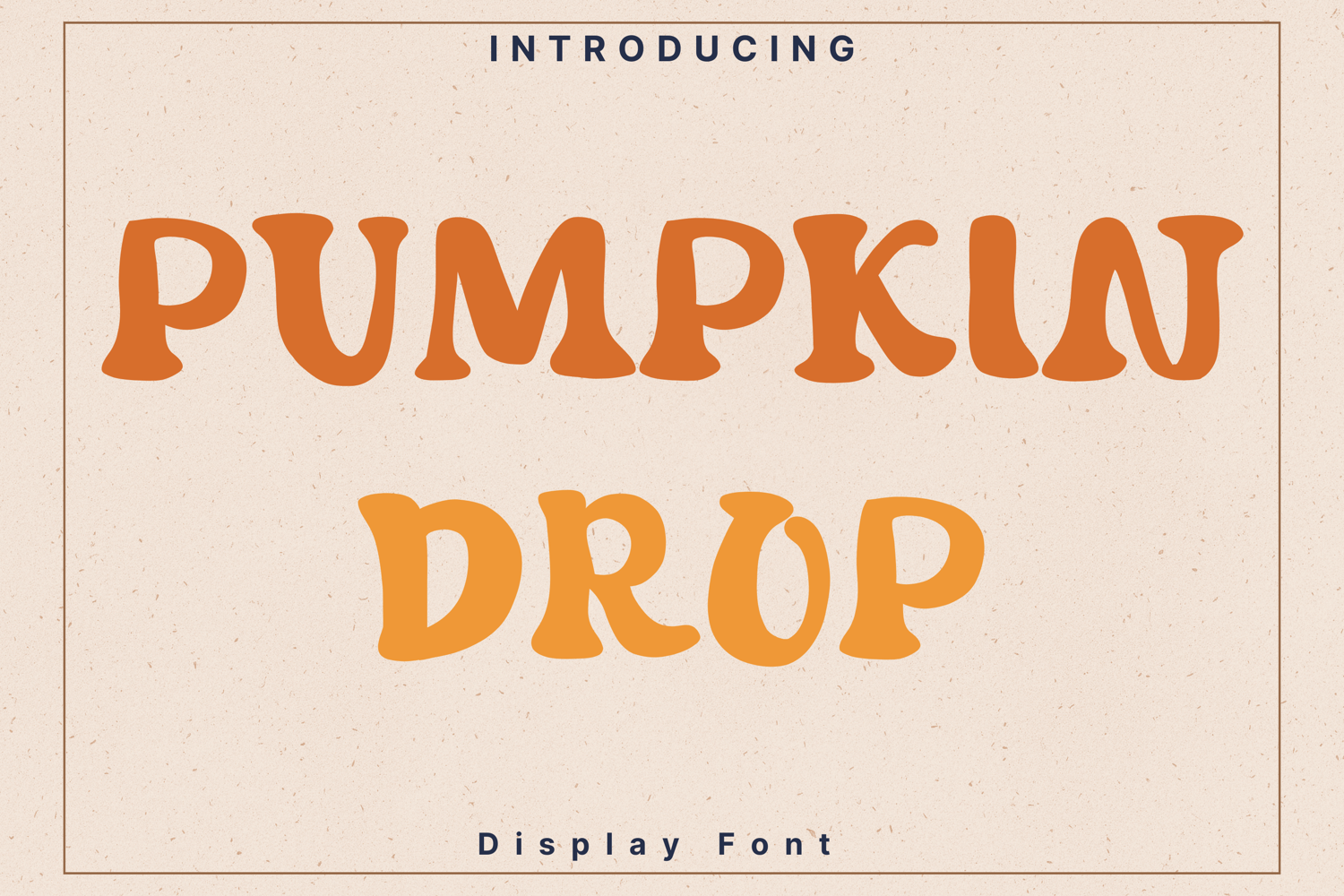
Pumpkin Drop Style
PumpkinDrop
Pumpkin Drop is a playful and bold display font with rounded, bubbly edges and heavy weight. It gives off a fun yet slightly spooky vibe, perfect for Halloween posters, party invitations, comic-style graphics, or quirky branding. Its chunky letterforms make it stand out while still being readable, ideal for eye-catching titles and festive designs.